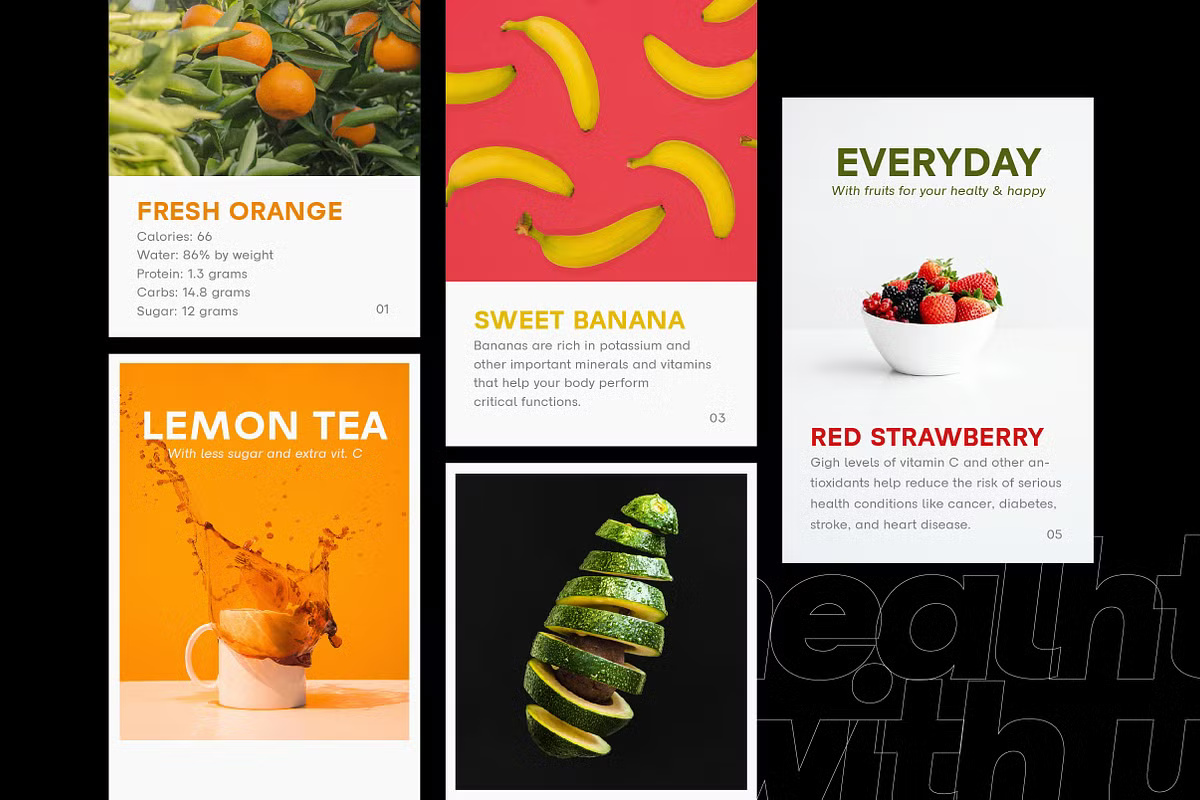
Naru Sans starts from circles and straight lines, then softens them with a few grotesque habits in the curves and joins. It feels plain without being cold.
Lettertype Studio drew 18 styles: nine weights from Thin to Black, each with an oblique. There are alternates for K, j, k and y, extra figure styles and fractions. The specimen tries it on a set of fruit drink cards, Fresh Orange, Sweet Banana and Lemon Tea, which shows how it handles small nutrition text next to big titles.
Best uses for Naru Sans
- Brand identities
- Food and drink packaging
- App interfaces
- Posters and signage
- Annual reports
Naru Sans pairs well with a serif such as Fraunces. Source Serif 4 suits longer text. For a mono accent, try JetBrains Mono.
Naru Sans Serif Font